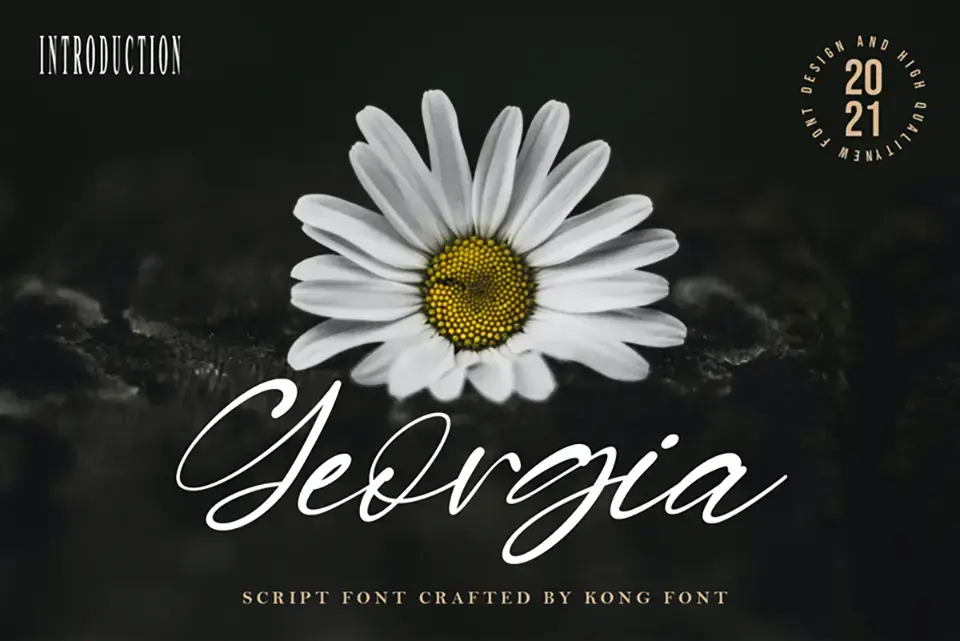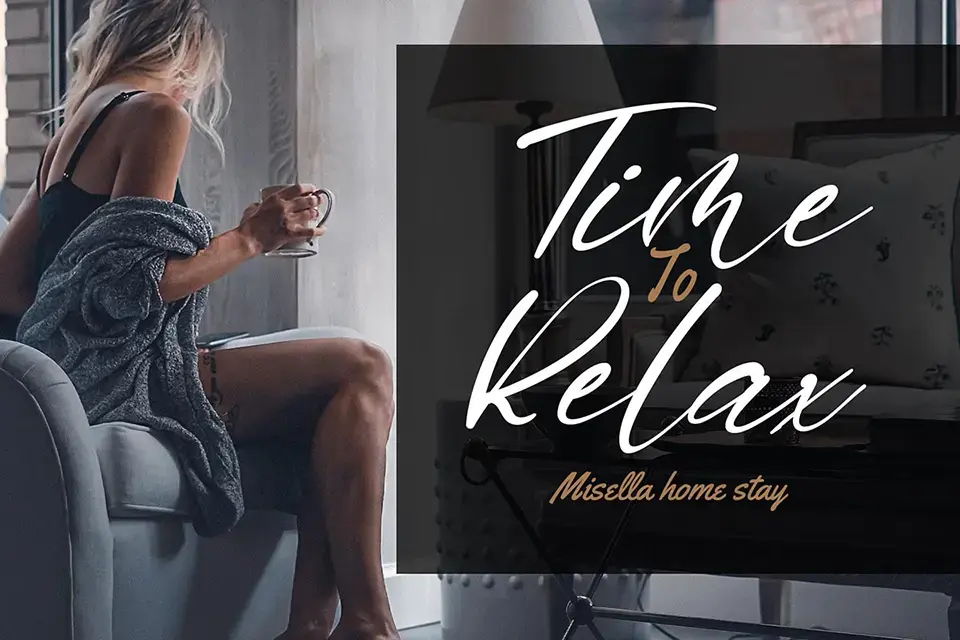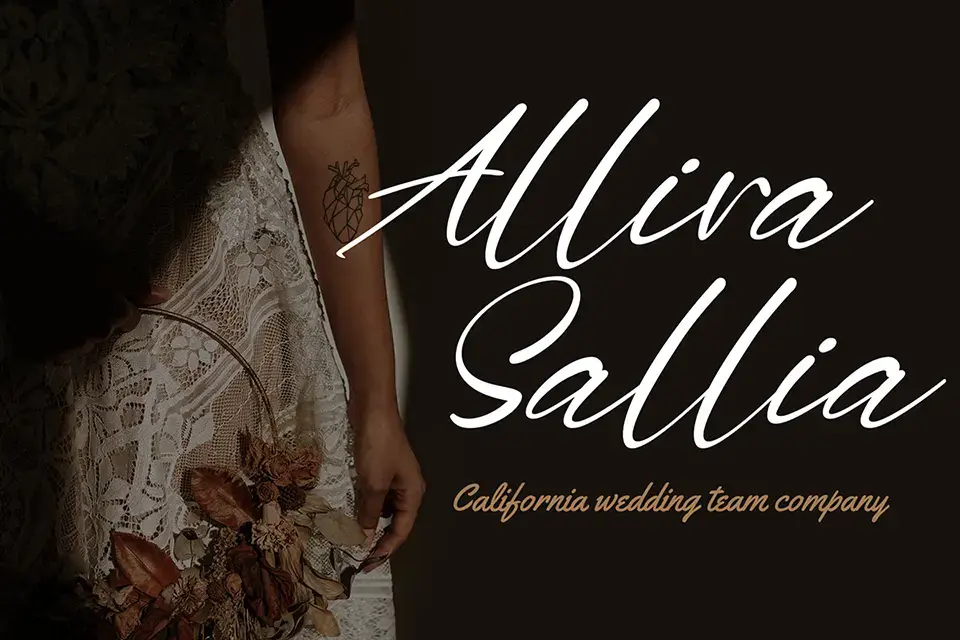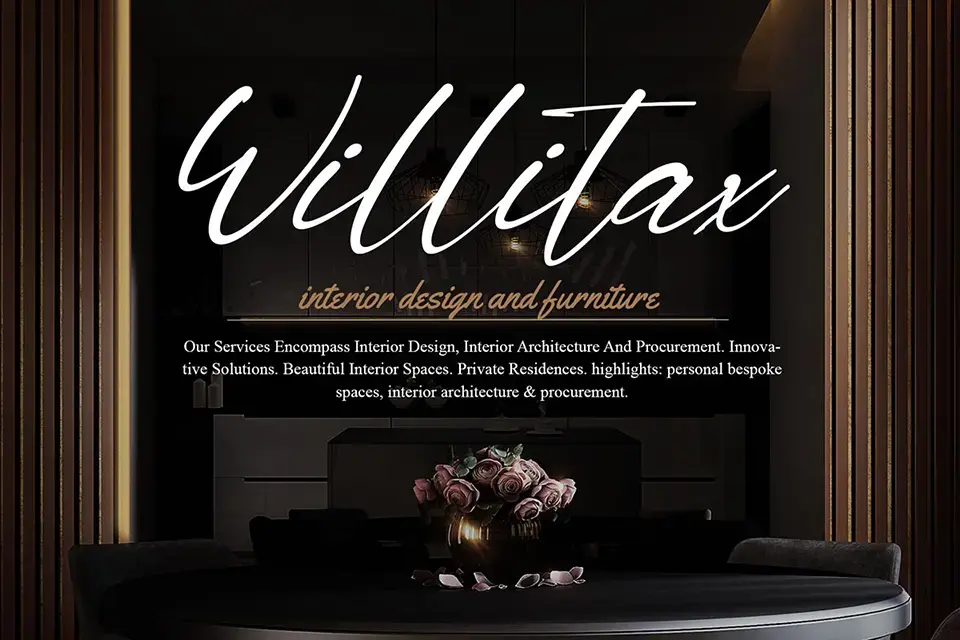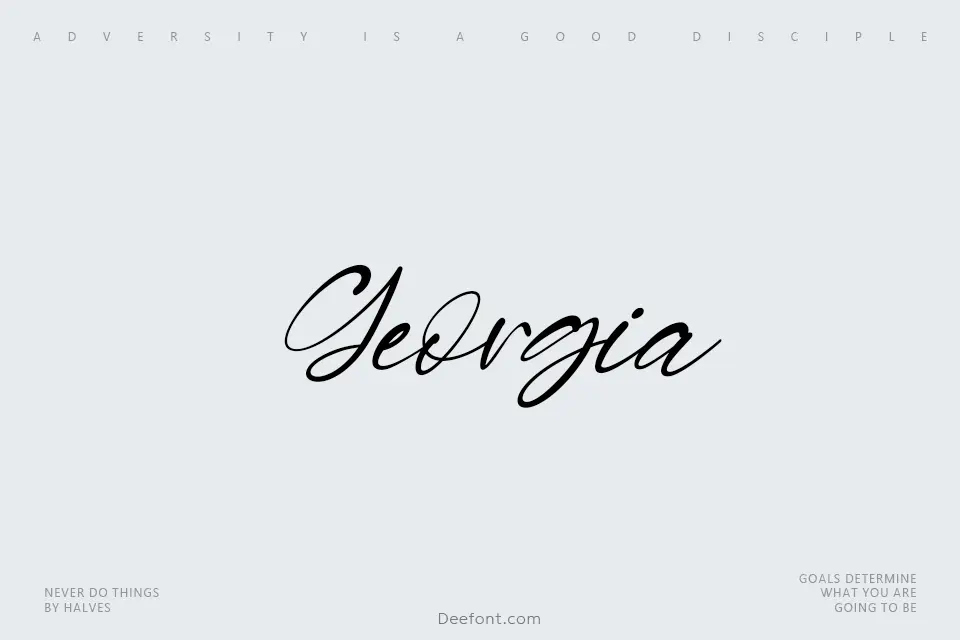
Georgia Handwritten Font
Georgia Handwritten Font is an elegant and flowing handwritten script typeface crafted to bring a warm, personal touch to your creative projects. With its naturally curved letterforms and gentle stroke variations, this font perfectly captures the authenticity of hand-lettering while maintaining excellent legibility. Ideal for invitations, greeting cards, poster designs, branding materials, decorative headers, and social media graphics, Georgia Handwritten delivers a sophisticated yet approachable aesthetic suitable for lifestyle brands, wedding stationery, artistic packaging, and any project requiring a human-like character with refined charm.